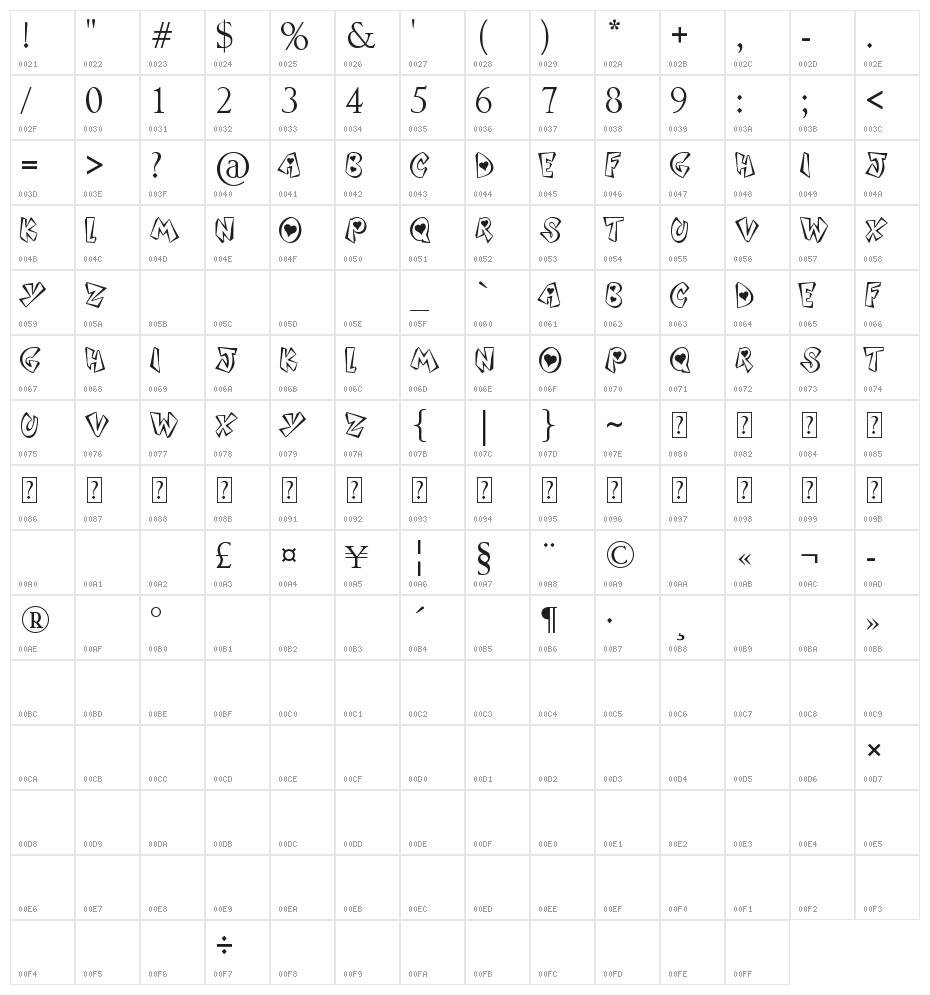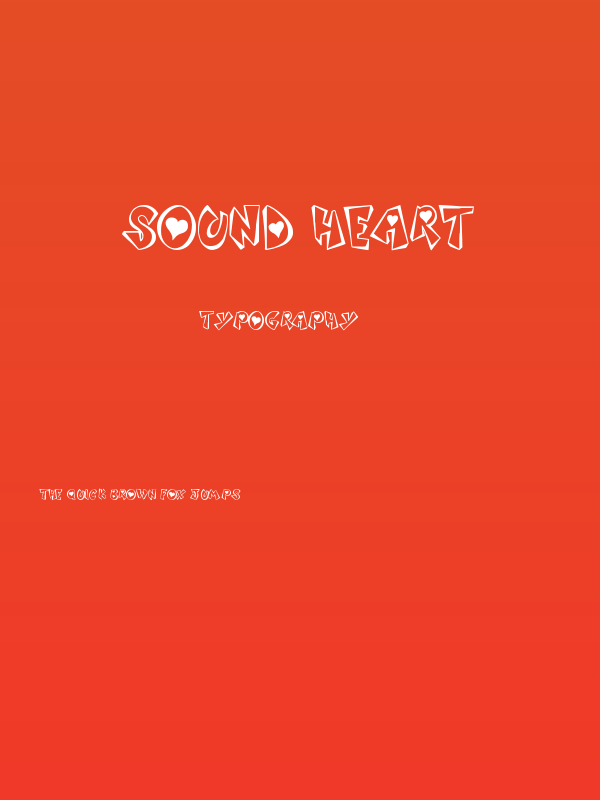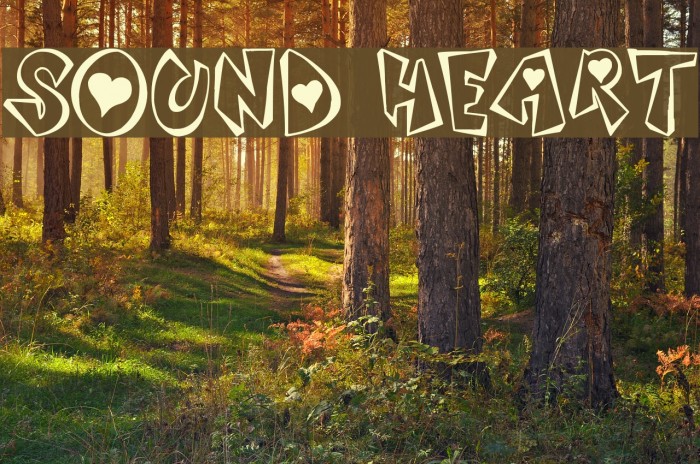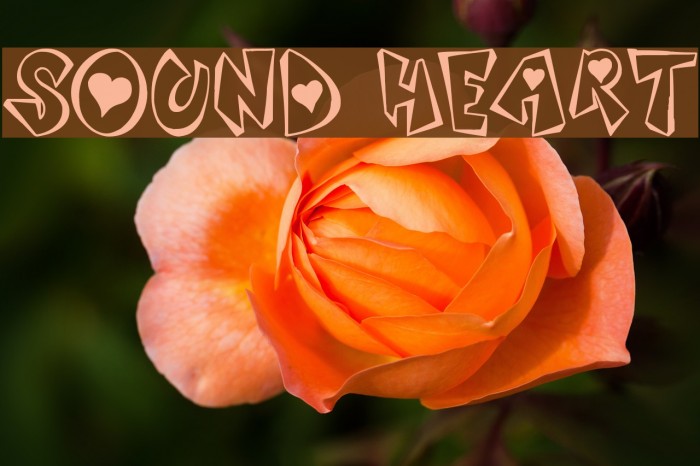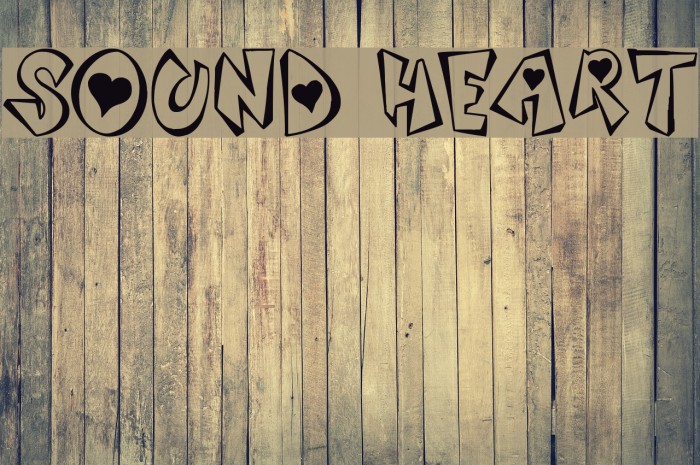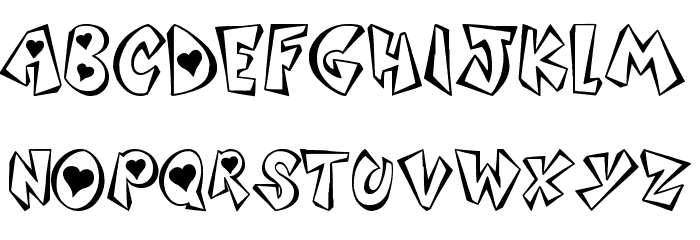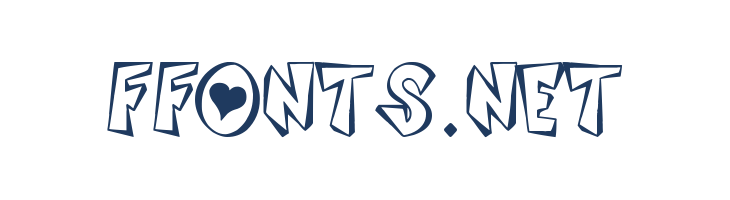
Sound Heart Font
Sound Heart Description
This playful and decorative font features bold, angular letters with a unique heart motif integrated into the design. The uppercase and lowercase letters maintain a consistent style, with sharp edges and a dynamic, energetic feel. The numbers and special characters complement the alphabet with a similar boldness and whimsical touch. This font's distinctive style makes it ideal for creative and fun projects, offering a lively and engaging visual appeal.
SOUND-HEART UPPERCASE
SOUND-HEART LOWERCASE
SOUND-HEART OTHER CHARS
| Overall Style | Playful, Energetic, Whimsical |
| Proposed Projects | Perfect for children's books, playful branding, party invitations, and Valentine's Day promotions. |